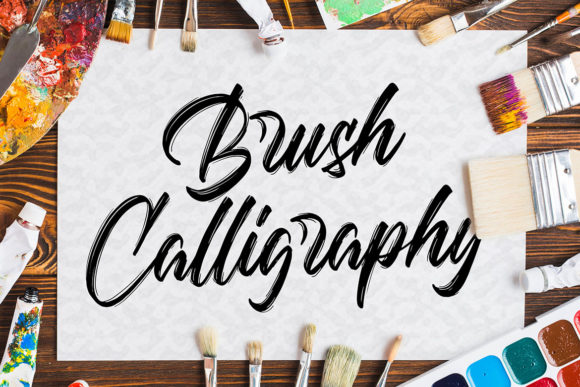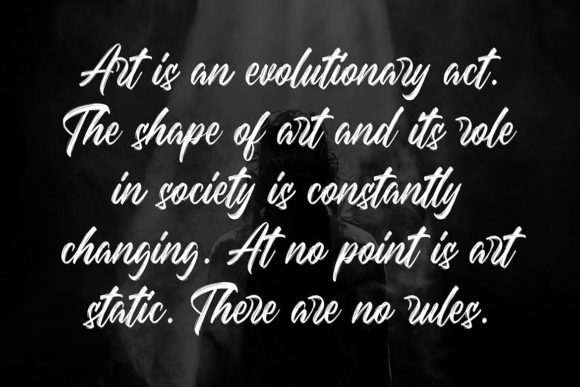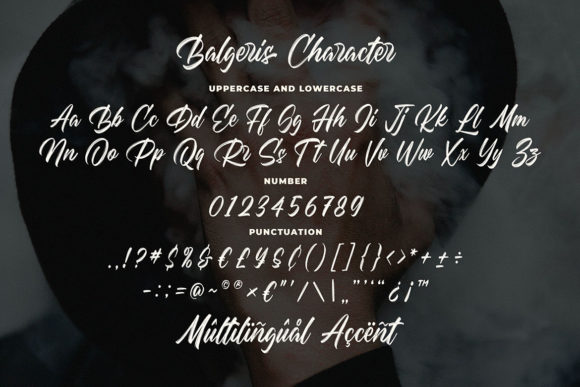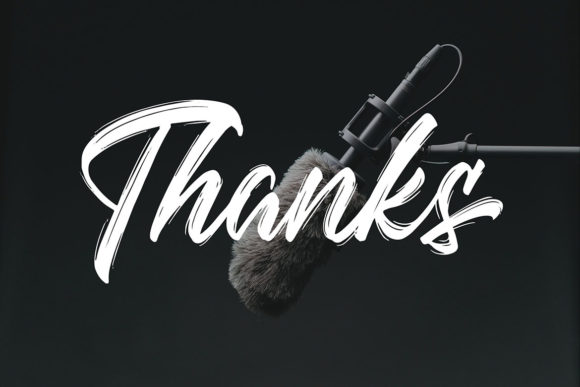
Balgeris Font
About Balgeris Font
Balgeris is an authentic typeface inspired by brush-stroke calligraphy. Use it for any crafting project that requires a personalized appearance!